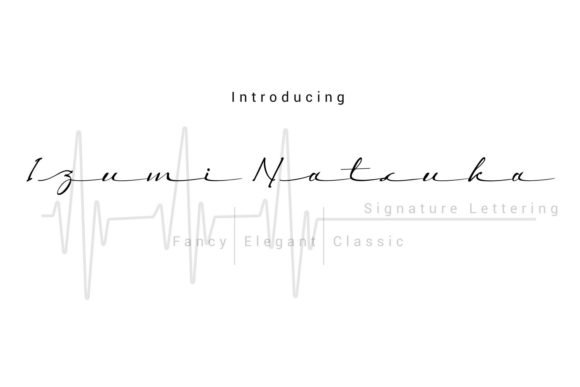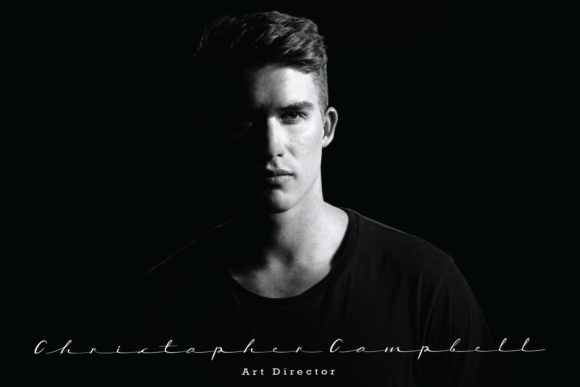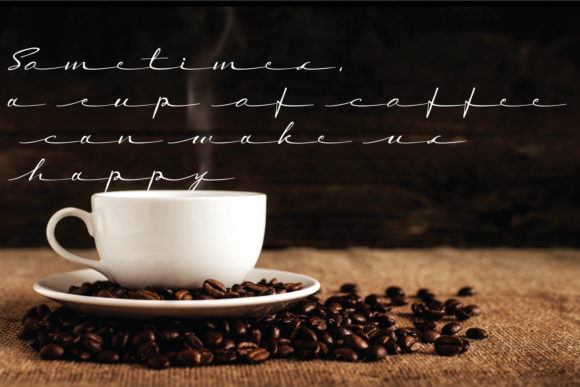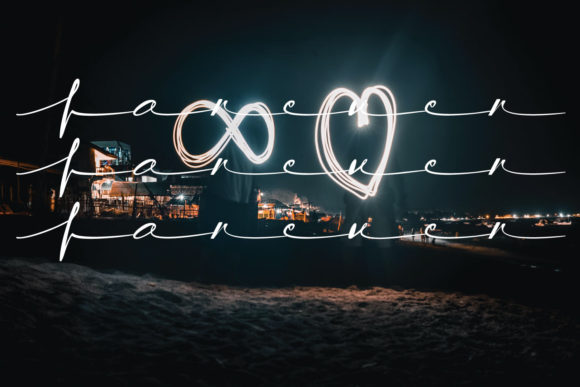
Discover the Delicate Beauty of Izumi Natsuka Font
Have you ever been working on a design project, pouring your heart and soul into it, only to feel like something is missing? You’ve tried every font, every color scheme, every layout, but nothing seems to bring it all together? That’s when I stumbled upon the Izumi Natsuka Font, and it changed everything for me.
This beautiful script font is more than just a pretty face – it’s a carefully crafted tool designed to add a touch of elegance and sophistication to any design. With its delicate, flowing lines and well-balanced character, the Izumi Natsuka Font is perfect for those who need a refreshing look to their designs. Whether you’re a seasoned designer or just starting out, this font is a valuable addition to any toolkit.
Izumi Natsuka Font Key Features
- Font Family: Izumi Natsuka is a Japanese font family designed by Hidetaka Iwai.
- Unique Characteristics: Features a unique blend of traditional Japanese and modern design elements, with intricate details and subtle nuances.
- Language Support: Supports a wide range of languages, including Japanese, English, and other languages that use the Latin alphabet.
Izumi Natsuka Font Review
I recently had the chance to work with the Izumi Natsuka Font, and I must say it’s a beautiful addition to any design project. ✨ Here are some of its strengths:
- Unique aesthetic**: Izumi Natsuka Font brings a unique, hand-drawn feel to any design, making it perfect for projects that need a touch of elegance and sophistication.
- High-quality characters**: The font’s characters are crisp and well-designed, ensuring that your text looks great at various font sizes.
- Comprehensive character set**: Izumi Natsuka Font includes a wide range of characters, including Latin, Cyrillic, and Greek alphabets, making it suitable for projects that require multilingual support.
However, like any font, Izumi Natsuka Font has its limitations: ⚠️
- May not be suitable for digital signage**: The font’s hand-drawn nature may not be ideal for digital signage or other high-resolution applications where the text needs to be clear and easily readable at a distance.
- Some characters may be difficult to read**: A few characters, such as the lowercase ‘i’ and ‘l’, can be easily mistaken for one another, which may cause readability issues in certain contexts.
Overall, I’m quite impressed with Izumi Natsuka Font. It’s a beautiful font that adds a touch of sophistication to any design project, and its comprehensive character set makes it a great choice for multilingual projects. However, it may not be the best choice for digital signage or applications where readability is a top priority.
The Izumi Natsuka font is a beautiful, elegant script font that is perfect for:
- Quotations and inspirational messages.